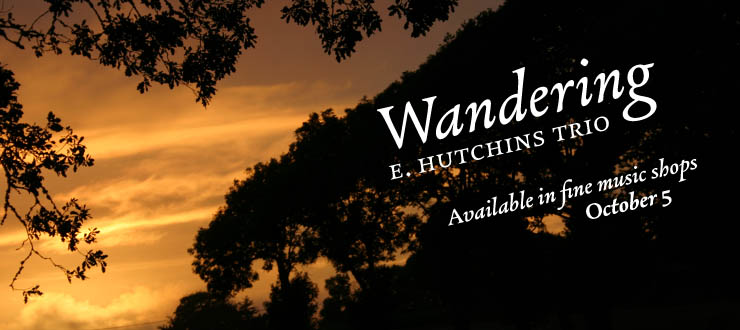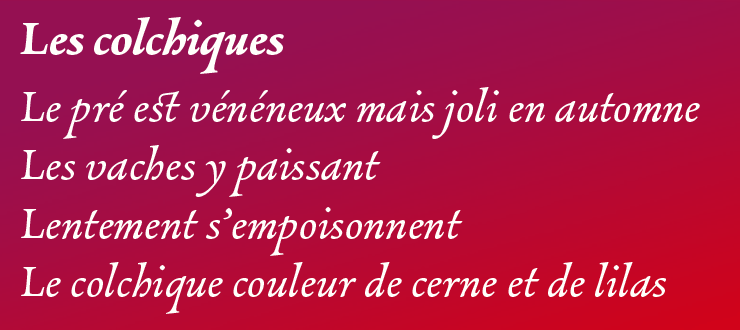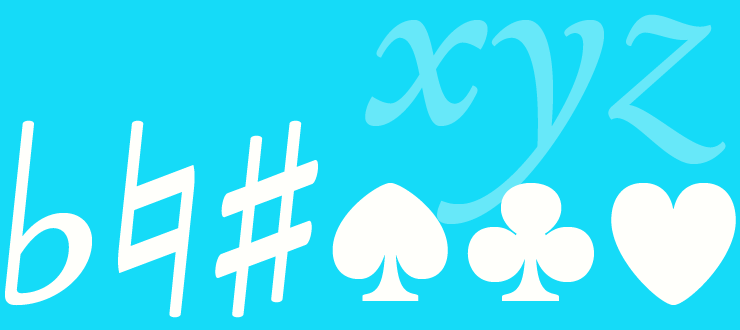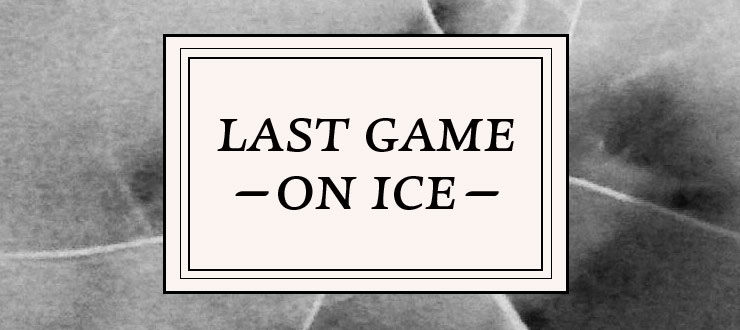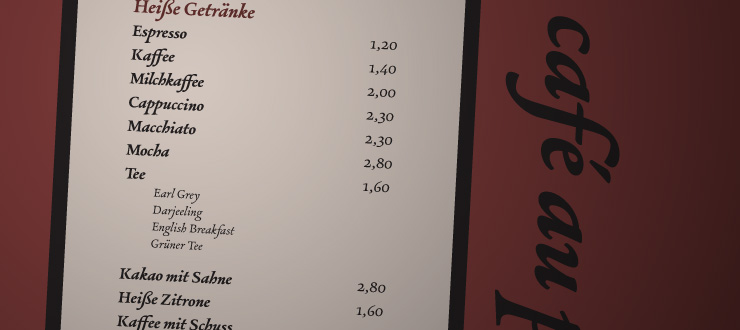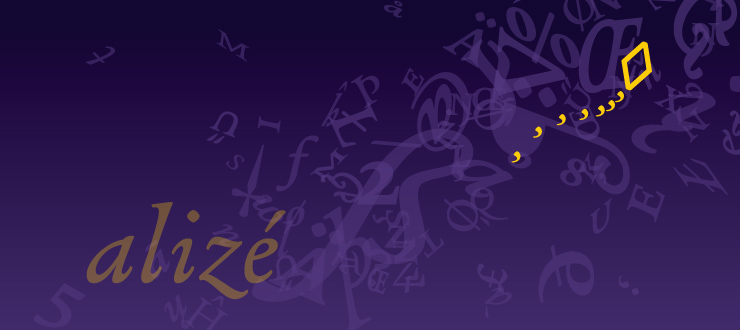
Alizé Alizé is a three-weight typeface inspired by the chancery italic of the 16th century. It is a high-contrast face, created with syncopations in axes and proportions and subtle irregularities that form a lively and delicate weave, suitable for setting a single word, a special expression, or a short block of prose. The family does not contain a roman, and instead promotes the italic as a primary style, a common printing convention in the 16th and 17th centuries. The italic lowercase predates inclined capitals by about twenty years, and as a nod to this typographic evolution, Alizé’s capitals, small capitals, and figures are very slightly inclined to match the energy of the lowercase. The low x-height and long ascenders and descenders, features associated with finesse and luxury, are reminiscent of the Venetian-style italic, but are further emphasised. Unlike the Venetian italic, however, Alizé has a sharp slope, giving a prominent sweep across the page (alizé is the name of trade wind). Each font of Alizé has also been manually hinted for the highest-quality display on both print and screen. The Alizé family is available at our webfont service partner FONTDECK or contact us for self-hosting @font-face.